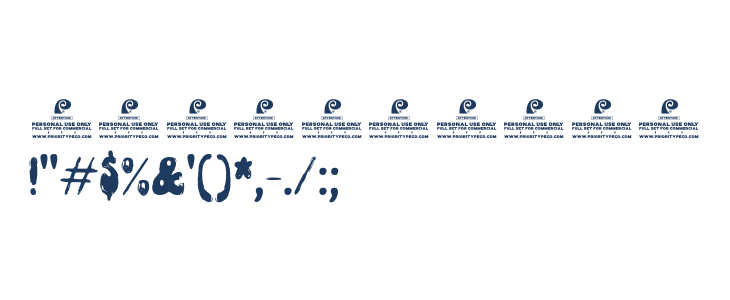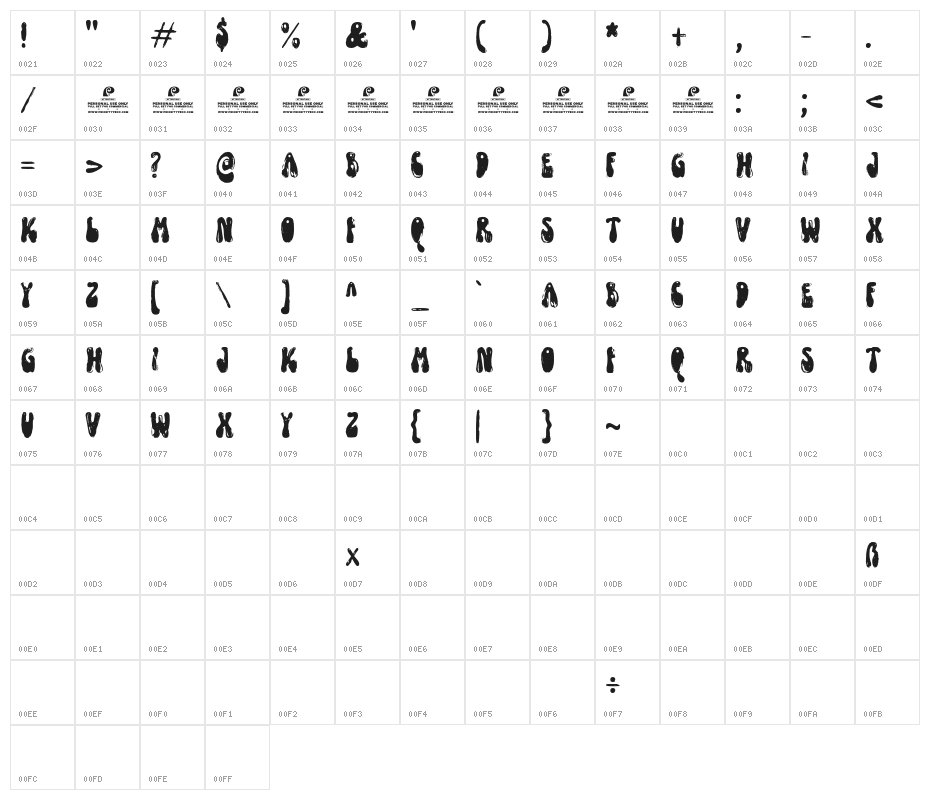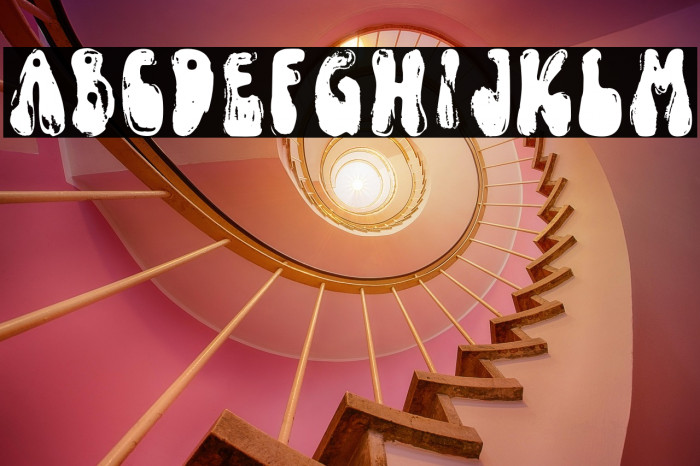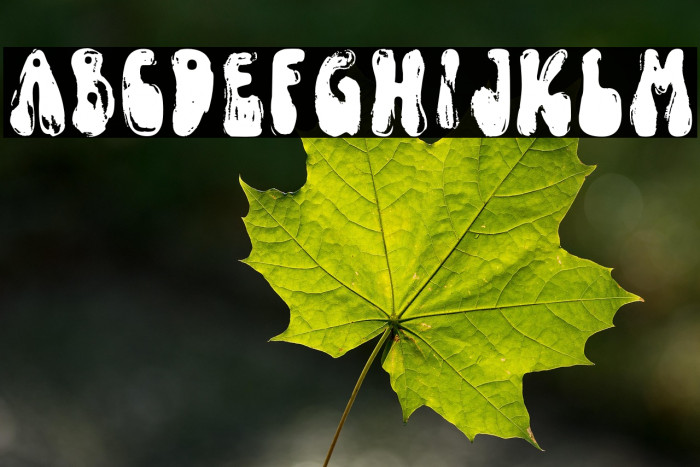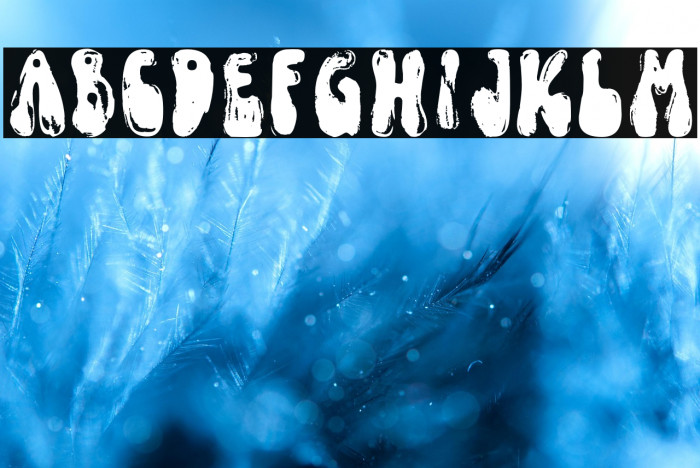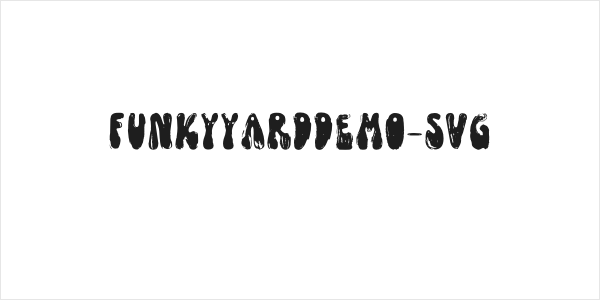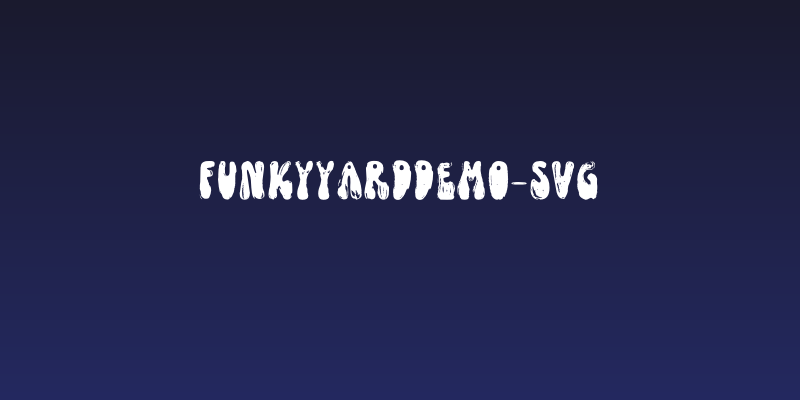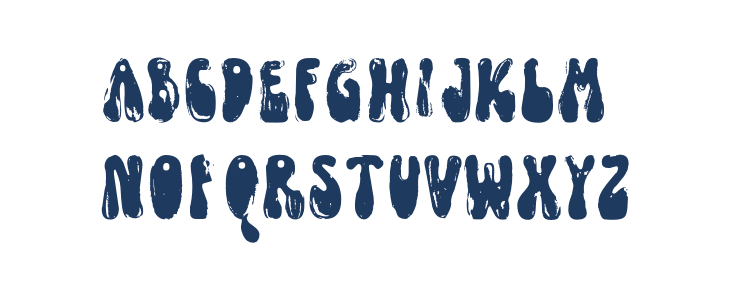
FunkyYardDEMO-SVG Font
FunkyYardDEMO-SVG Description
This font exhibits a bold and dynamic style with a distinctively playful and artistic flair. The characters appear as if they are painted with a brush, featuring irregular edges and a textured appearance that adds a sense of movement and energy. The uppercase and lowercase letters maintain a consistent style, with each character having a unique shape that contributes to the overall whimsical aesthetic. The numbers and special characters follow the same design principles, ensuring a cohesive look across all glyphs. This font is perfect for projects that require a creative and eye-catching typeface.
| Overall Style | Artistic, Playful |
| Proposed Projects | Ideal for posters, album covers, event invitations, and any creative project that benefits from a bold and artistic typeface. |